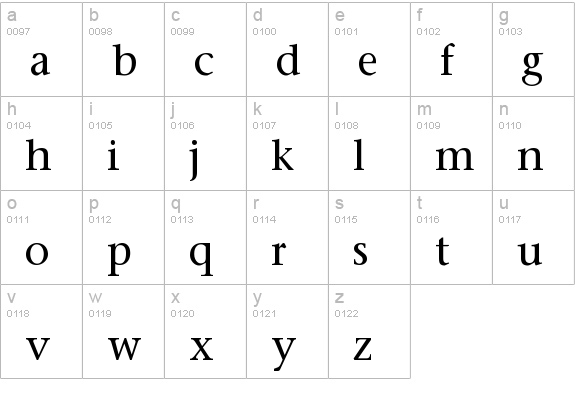
Fasse Font Details
Fasse font is a stunning typeface that combines elegance with modernity, making it the perfect choice for a wide range of design projects. Its sleek lines and balanced proportions exude sophistication and style, making any text look polished and professional. The versatility of Fasse font means it can be used for anything from branding to editorial design, adding a touch of class to any project. The best part? Fasse font is free to download at FontsMarket.com, making it accessible to everyone looking to elevate their designs without breaking the bank. Whether you're a seasoned designer or just starting out, Fasse font is a must-have in your font collection. Download it today and see the difference it can make in your creations.